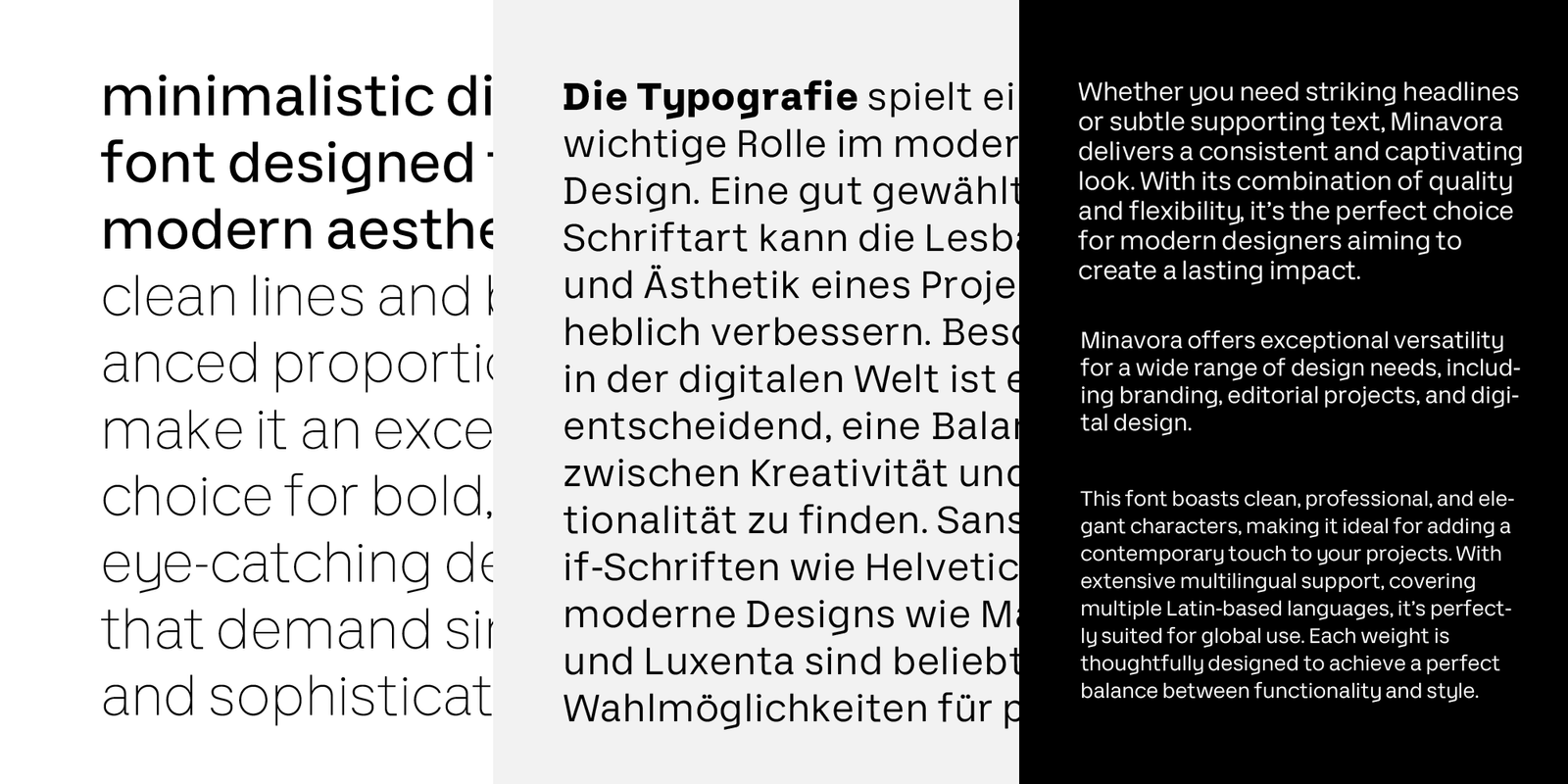
Vertiga is a clean and contemporary sans serif typeface designed with precision and versatility in mind. Built for modern branding, editorial layouts, websites, and UI/UX design, Vertiga combines geometric balance with subtle humanist details, making it both highly functional and visually distinctive. With 9 weights from Thin to Black, Vertiga adapts seamlessly to any creative need — from bold headlines and impactful marketing visuals to refined body text and minimalist digital interfaces.
Clear spacing, smooth curves, and refined proportions ensure excellent readability at any scale, while its modern aesthetic brings a confident, timeless tone to every project.
Designer
Cometype